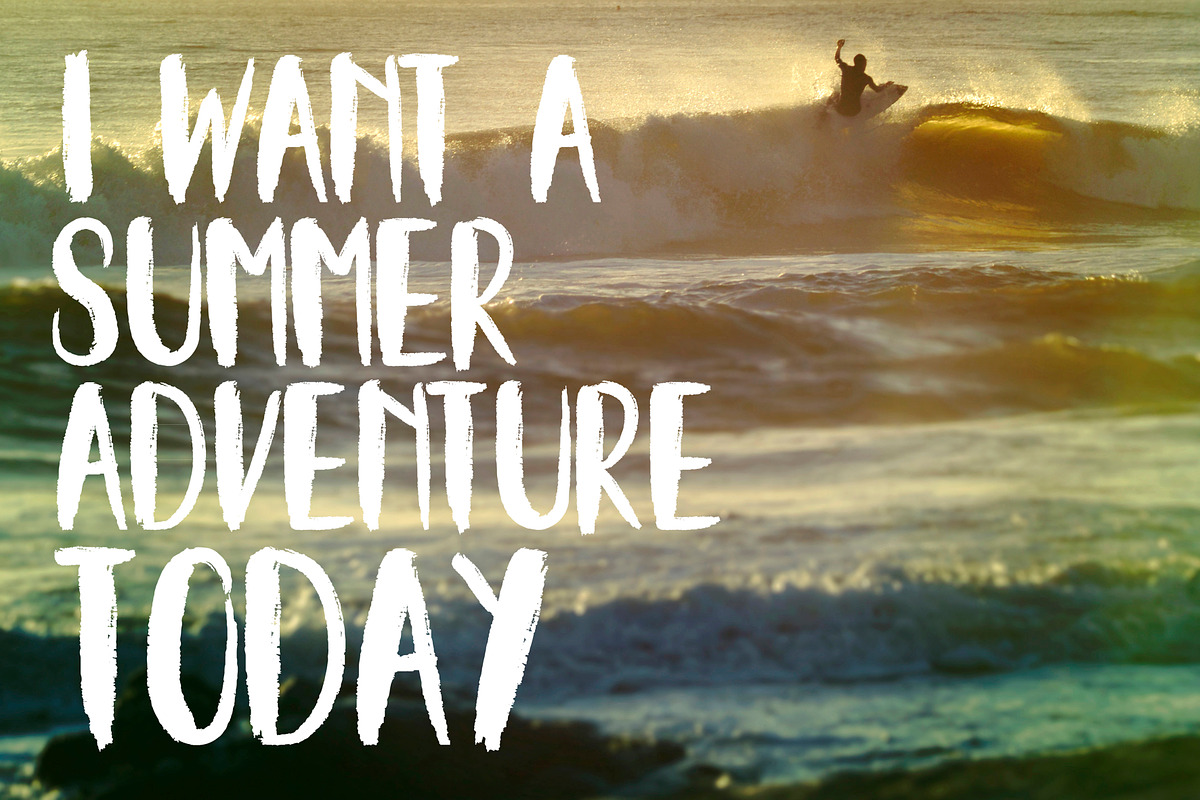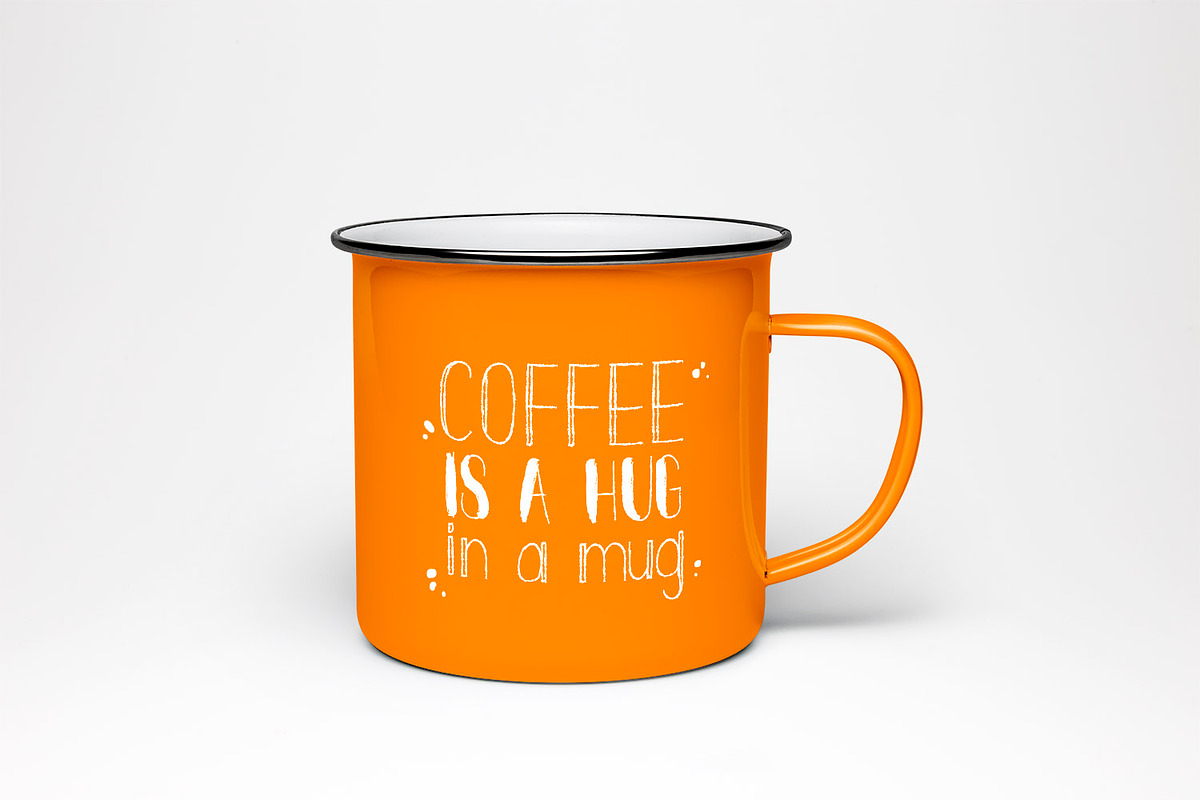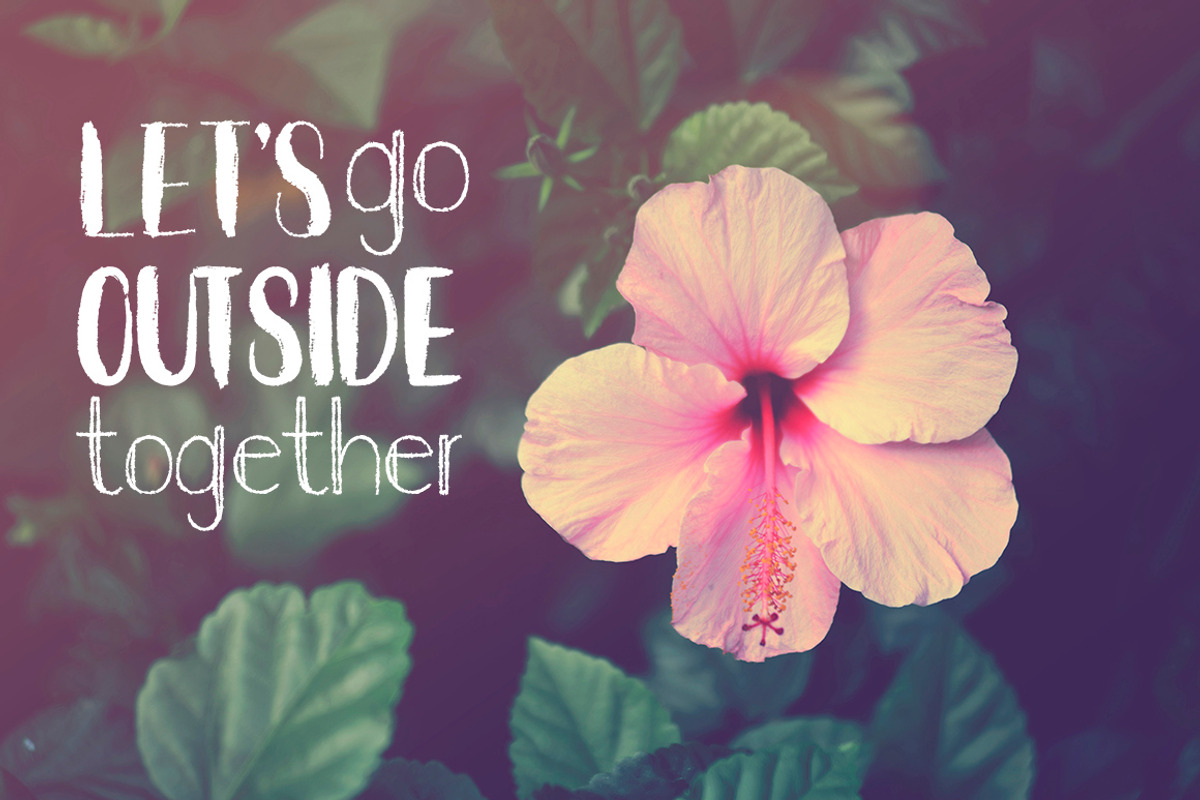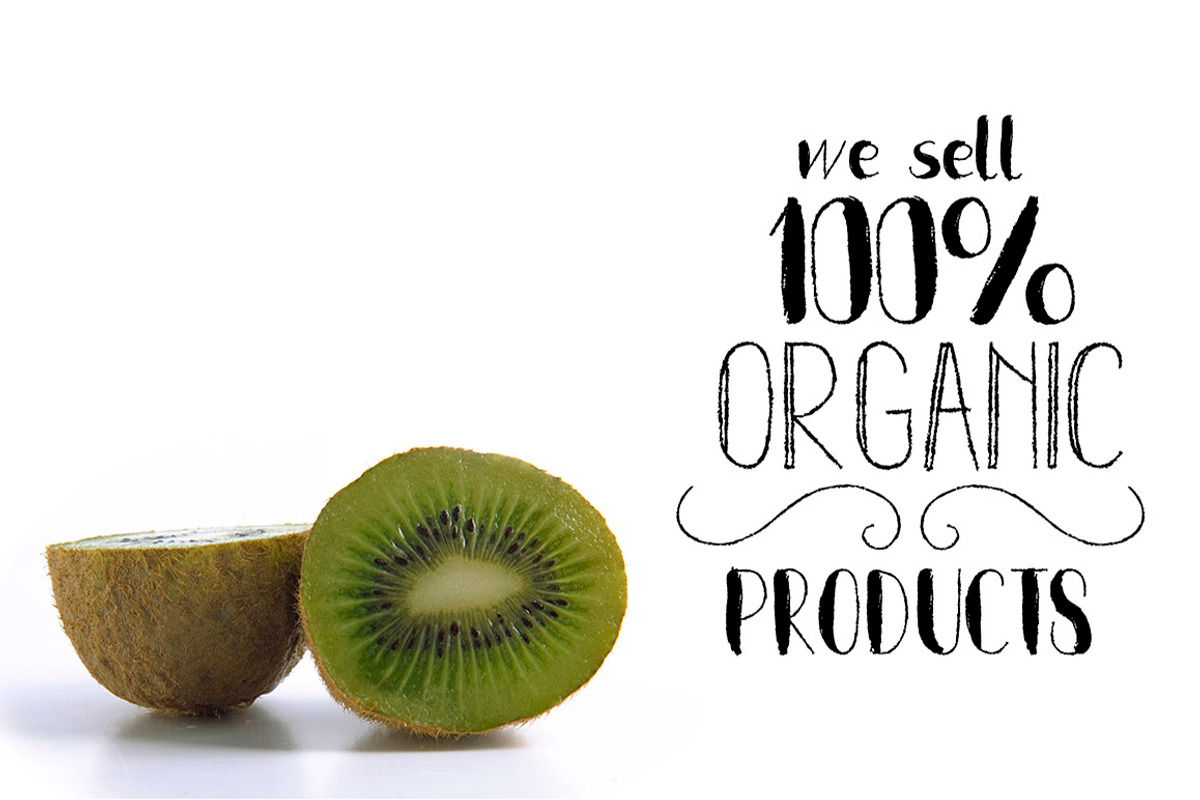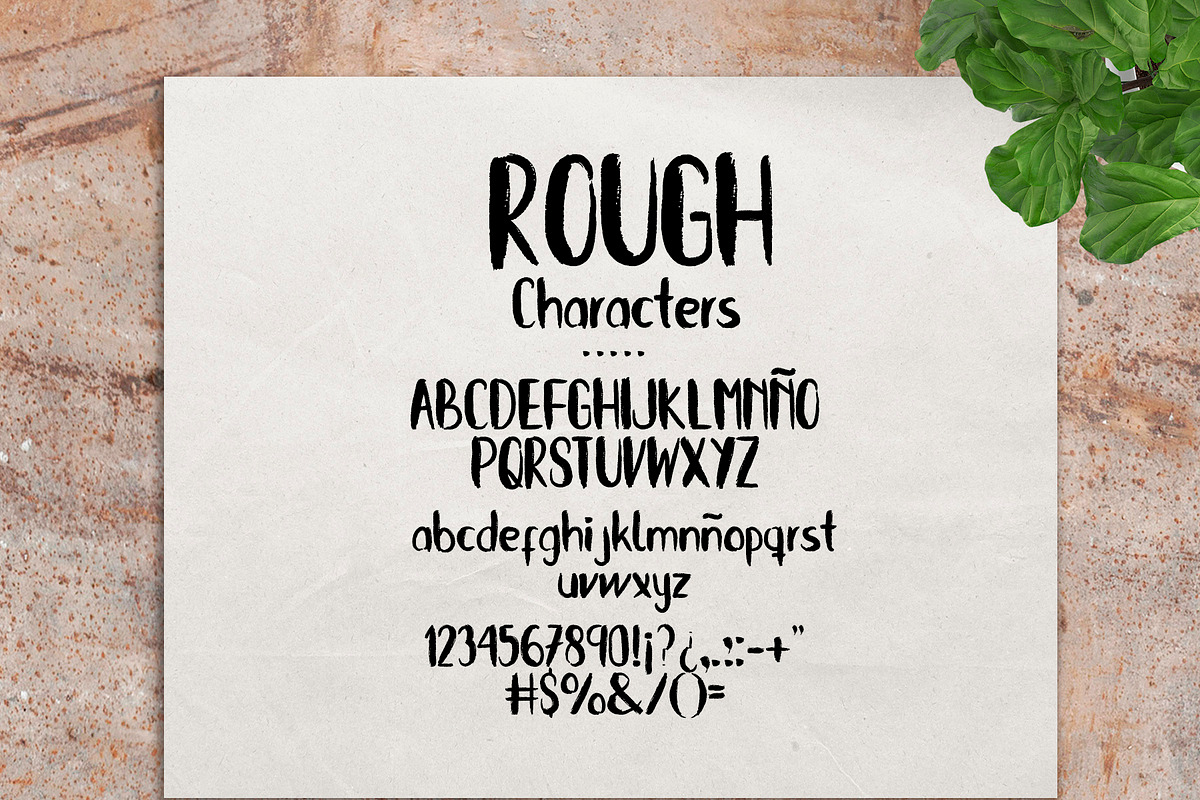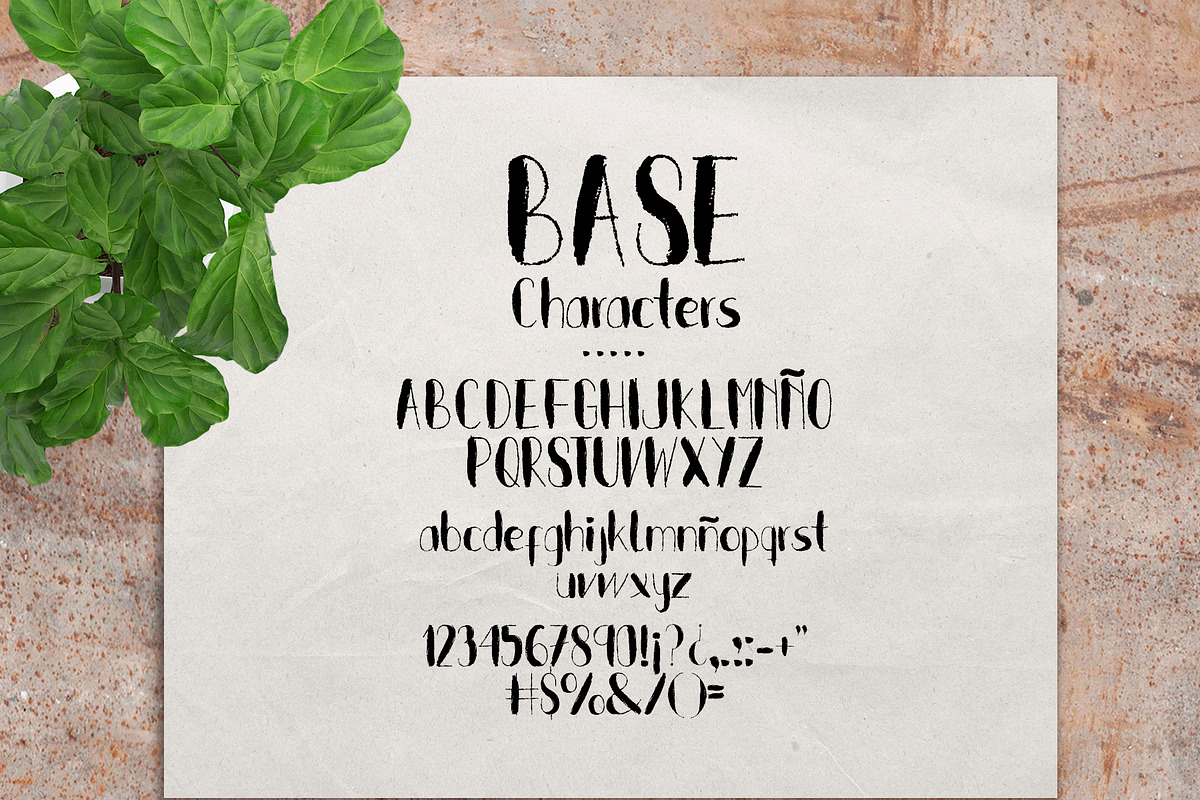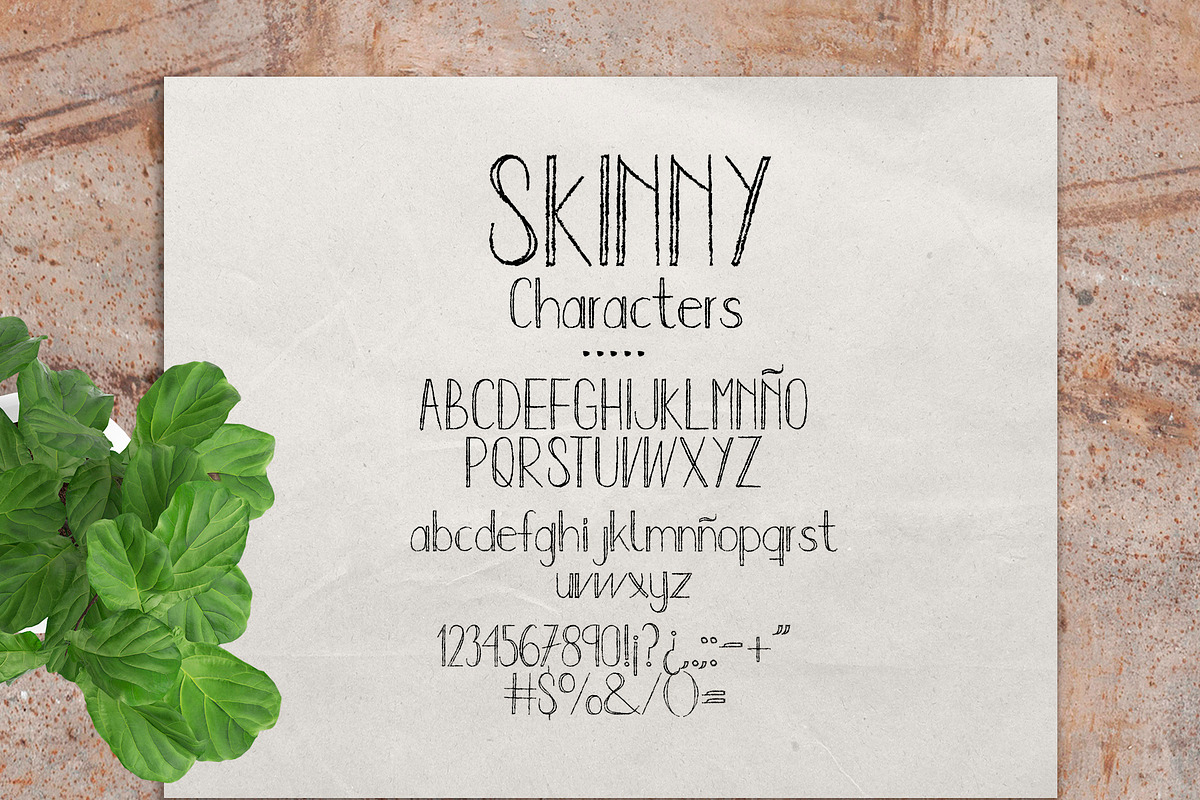
INTRO SALE 60% OFF! Kiwy: font trio by Cienpies Design is a font selected for branding, posters, packaging, typography.
INTRO SALE 60% OFF! Kiwy: font trio by Cienpies Design fits naturally into Branding, posters, packaging, typography.